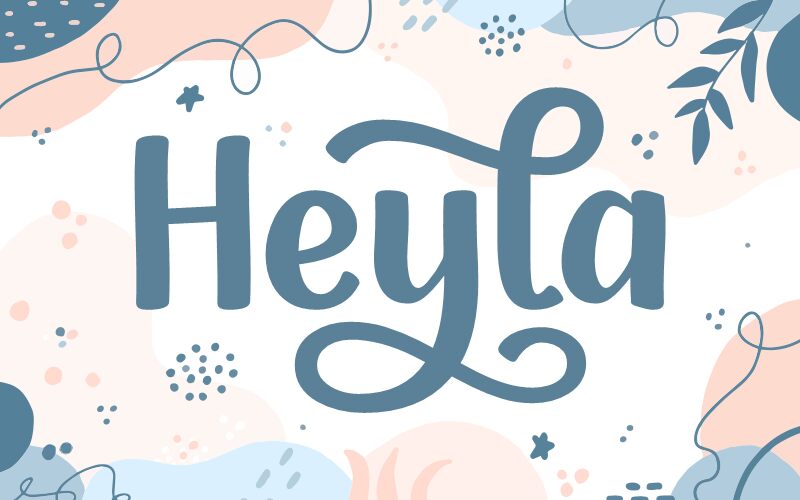
Introducing Heyla Italic, a handwritten and calligraphic font by Kristoper Sianturi and Situjuh Nazara. This unique font is perfect for projects needing a creative touch, such as wedding invitations, greeting cards, logos and posters.